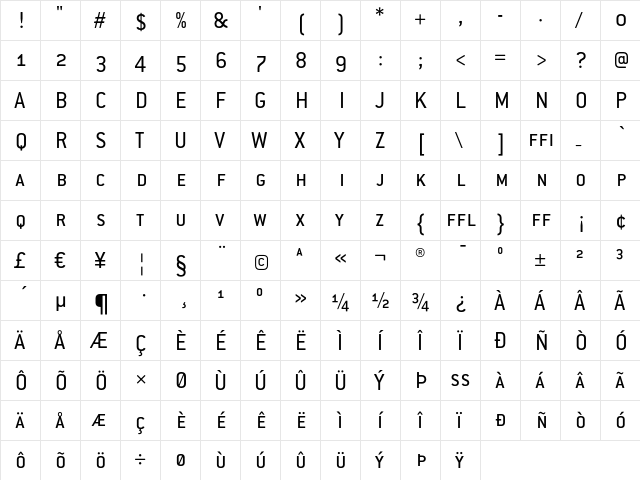
ConduitSCITC Regular Font Preview
ConduitSCITC Regular
Design Context for ConduitSCITC Typeface
ConduitSCITC takes a measured approach to typography — its balanced proportions and neutral character make it a reliable workhorse for both digital and print work. Its narrow stance lets it pack a punch even in space-constrained designs.